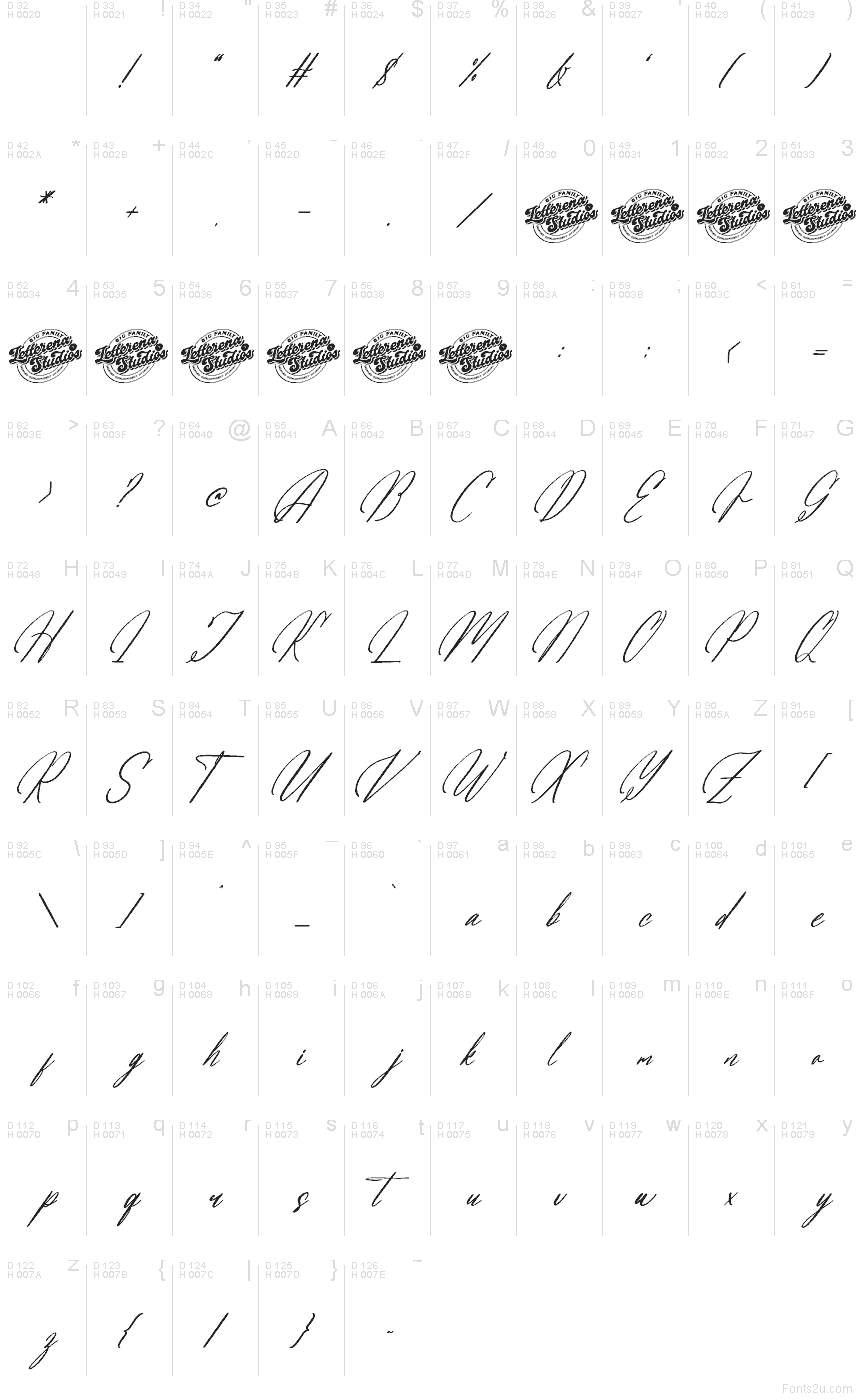
Arathevil Bontegliar DEMO VERSI Italic
Arathevil Bontegliar Italic font by Letterena Studios is a free handwritten script typeface with a distinctly elegant, ceremonial feel. Its long, sweeping strokes and tight, connected rhythm create the look of fast, confident penmanship, like a signature written with a fine inky nib. The tall, airy forms and graceful curves give every word a sense of motion, making it feel personal, romantic, and a little dramatic.
Using Arathevil Bontegliar Italic, your titles and names instantly take on that “special occasion” energy, which works beautifully for wedding invitations, save-the-dates, personal branding, boutique logos, packaging, and social media headers. This free font shines when given room to breathe at larger sizes, so let it lead as the hero text and pair it with a clean sans serif for supporting copy to keep everything readable and refined.